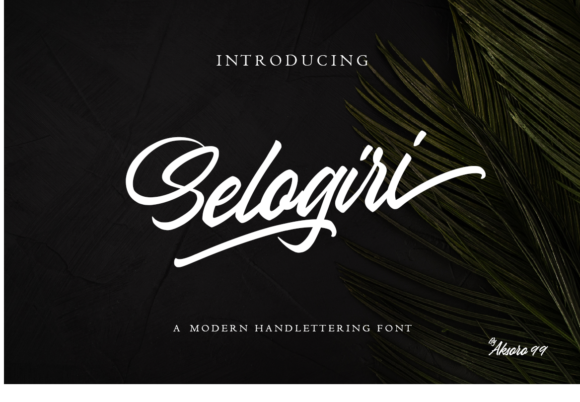
Get ready to infuse your designs with elegance and charm with the awe-inspiring Selogiri font, a stunning script masterpiece crafted by Aksoro 99. This remarkable creation is a testament to the beauty of handwritten typography, meticulously designed to evoke a sense of sophistication and individuality.
With its graceful curves and sweeping flourishes, Selogiri adds an irresistible touch of flair to any project. Its PUA encoding ensures seamless access to a treasure trove of glyphs and swashes, empowering you to unleash your creativity and leave a lasting impression.
Selogiri is not just a font; it's an experience. Immerse yourself in the world of calligraphy, where each letter dances across the page with poise and elegance. Let Selogiri's enchanting strokes captivate your audience, whether you're creating business letters, greeting cards, wedding invitations, or social media graphics.
Unleash the boundless potential of Selogiri and elevate your designs to new heights. Its versatility knows no bounds, effortlessly complementing a wide range of aesthetics, from vintage and classic to modern and contemporary.
Seize the opportunity to make a statement with Selogiri, the font that transforms words into art and breathes life into your creative endeavors. Don't let this gem pass you by; embrace the beauty of Selogiri today and embark on a journey of artistic expression like never before!